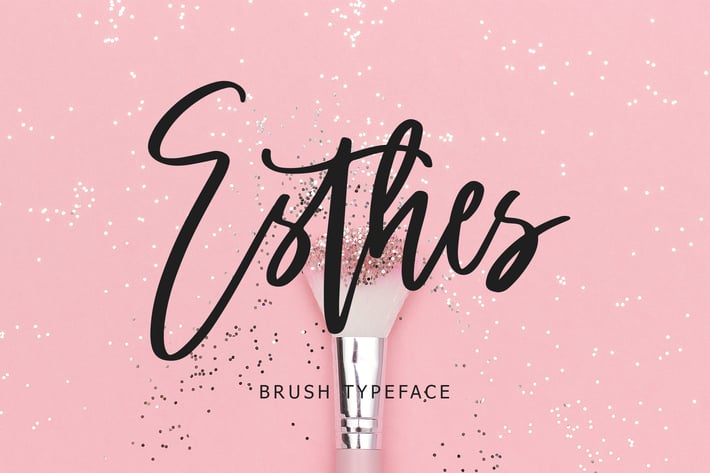
Esthes Brush Script Typeface
Esthes Brush Script Typeface is a modern look of Script font, can make your text appear elegant, luxurious, and modern!
Esthes is perfect for branding projects, logo, wedding designs, social media posts, advertisements, product packaging, T-shirt design, product designs, label, photography, watermark, invitation, stationery, and any projects.